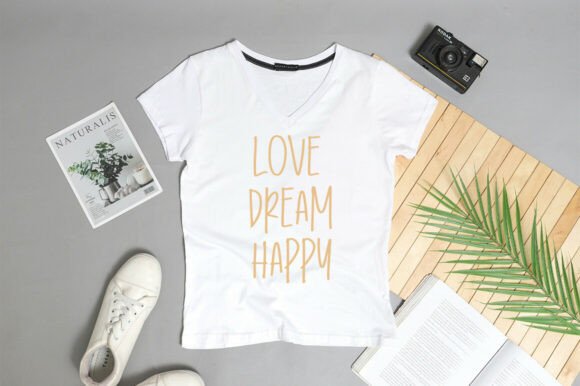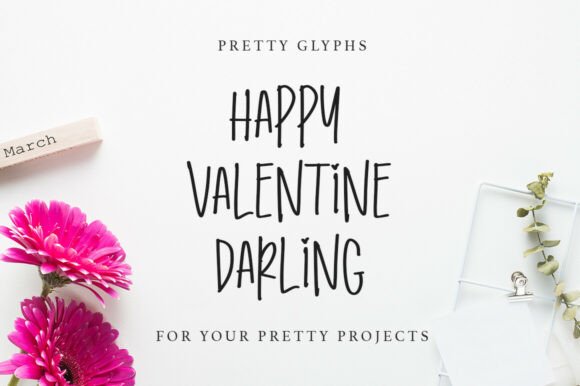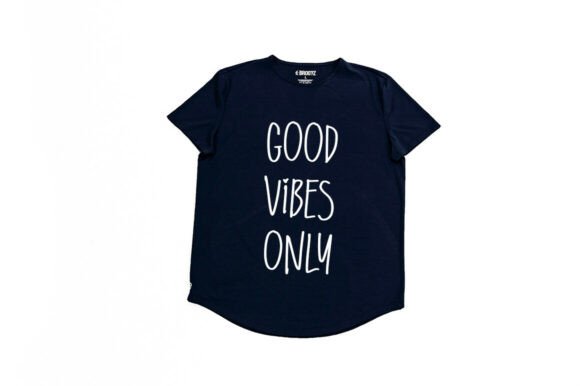
Introduction to Quicklines Font
Introducing our artistically brushed font, a tool that amplifies boldness and emits a breezy, stylish flair.
Conceived from genuine brush lettering, every character is intricately crafted with natural strokes and rapid movement, resulting in a textured, handcrafted finish that instantly gives your design an edge With an aim to gratify the needs of creatives with a thirst for authenticity and strong personality, this font strikes an impeccable balance between relaxed spontaneity and contemporary aesthetics.
Key Features of Quicklines Font
Why Choose Quicklines Font?